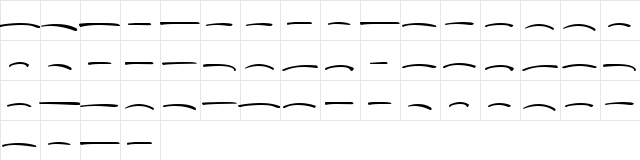
Swash Regular
Design Context for Swash Typeface
Swash flows with the natural rhythm of handwritten lettering, making it ideal for designs that call for warmth and personal expression.
Font Pairing: Combine Swash with a simple geometric sans for maximum contrast — the tension between flowing curves and clean structure is a classic typographic pairing.
Pro Tip: Pair Swash with a clean sans-serif for supporting text. The contrast between fluid script and geometric structure creates an elegant typographic hierarchy.